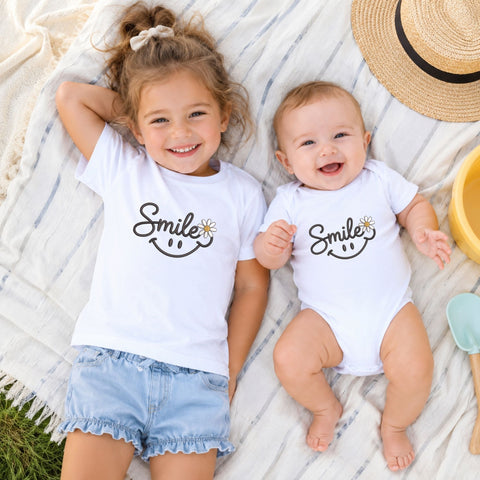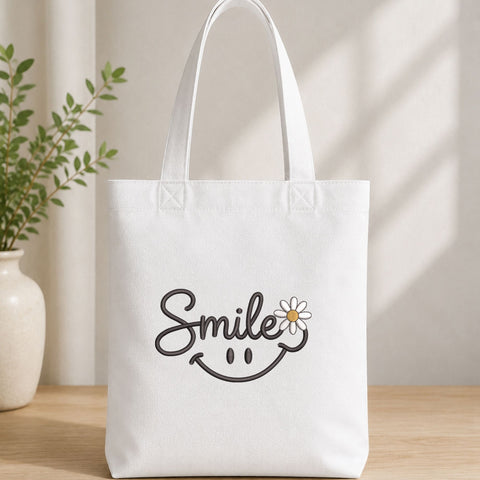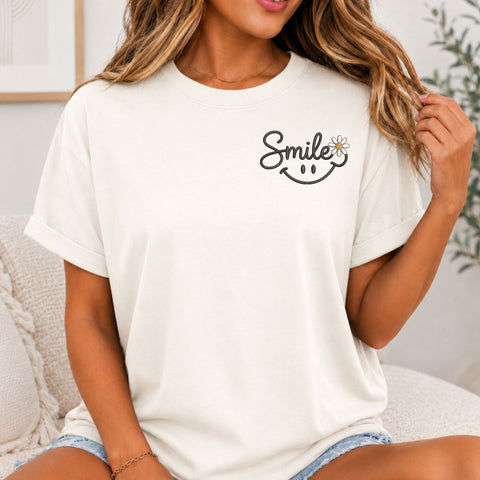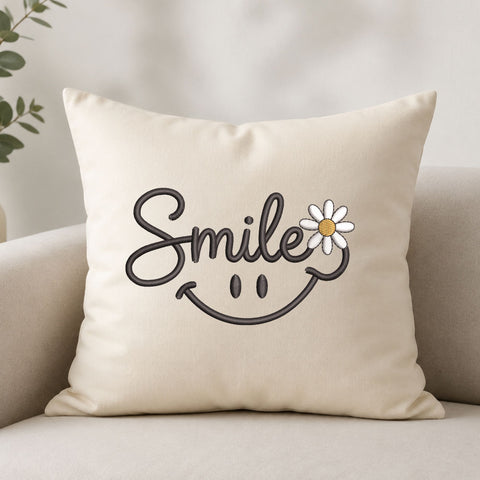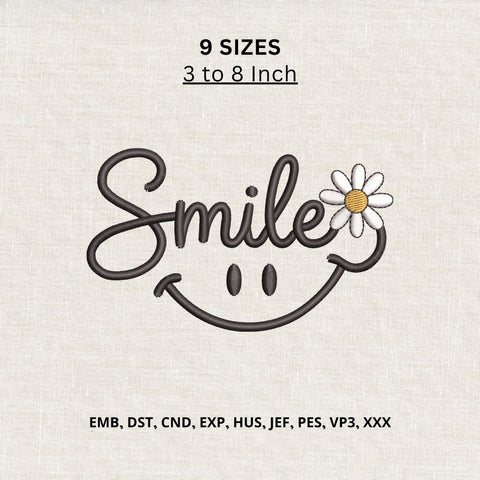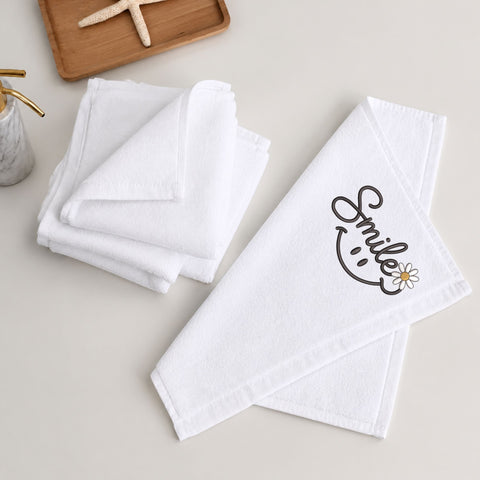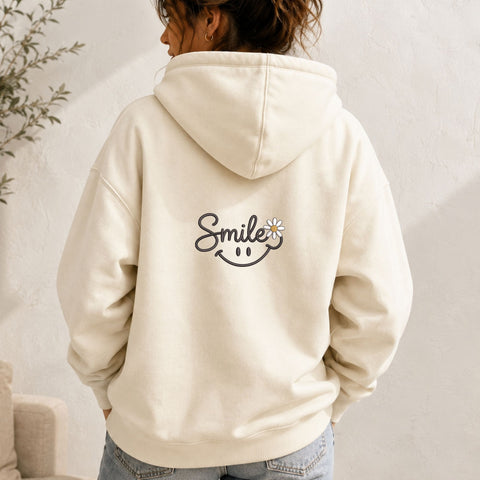
Smile Daisy Machine Embroidery Design Happy Face Flower Embroidery File
Add a cheerful touch to your projects with this cute Smile Daisy Machine Embroidery Design, featuring the word “Smile” in flowing script, a sweet daisy accent and a simple happy smiley face.
Perfect for shirts, sweatshirts, hoodies, tote bags, hats, pillows, towels, backpacks, kids clothing and positive-themed gifts. This uplifting design is great for flower lovers, teachers, teens, kids, friends and anyone who loves happy, positive embroidery projects.